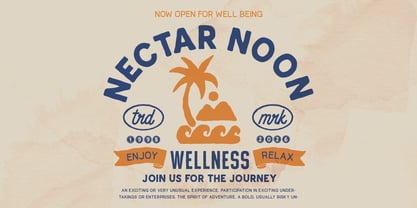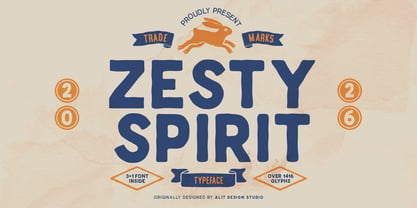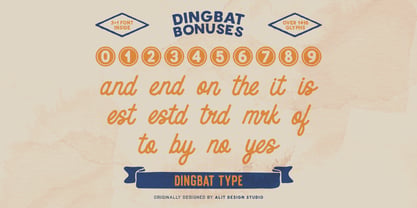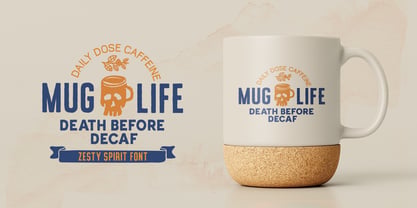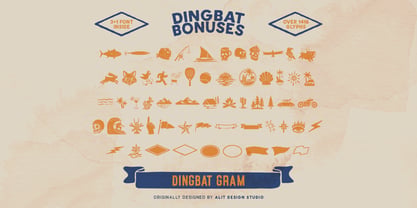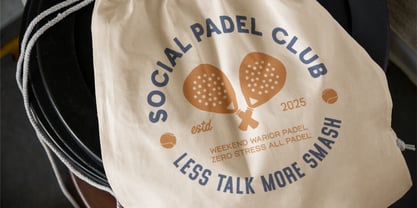
Zesty Spirit High
by Alit Design
The Zesty Spirit High Font Family was designed by Alit Suarnegara and published by Alit Design. Zesty Spirit High contains 4 styles and family package options. More about this family
Zesty Spirit – The Authentic Rough Stamp Typeface Capture the Spirit of Adventure with Authentic Grit. Introducing Zesty Spirit, a comprehensive font family designed to bring the timeless appeal of vintage rubber stamps and rough textures to your digital toolkit. Inspired by the great outdoors, retro branding, and the "seek and strike" mentality, this typeface is more than just letters—it’s a complete design system for creating logos, badges, and apparel with genuine character. The Zesty Spirit family is defined by its imperfect, textured edges that mimic the pressure and ink bleed of traditional stamping. Whether you are designing for a surf brand, a coffee roastery, a camping gear startup, or a bold poster, Zesty Spirit delivers that "worn-in" look instantly.
Designers: Alit Suarnegara
Foundry: Alit Design